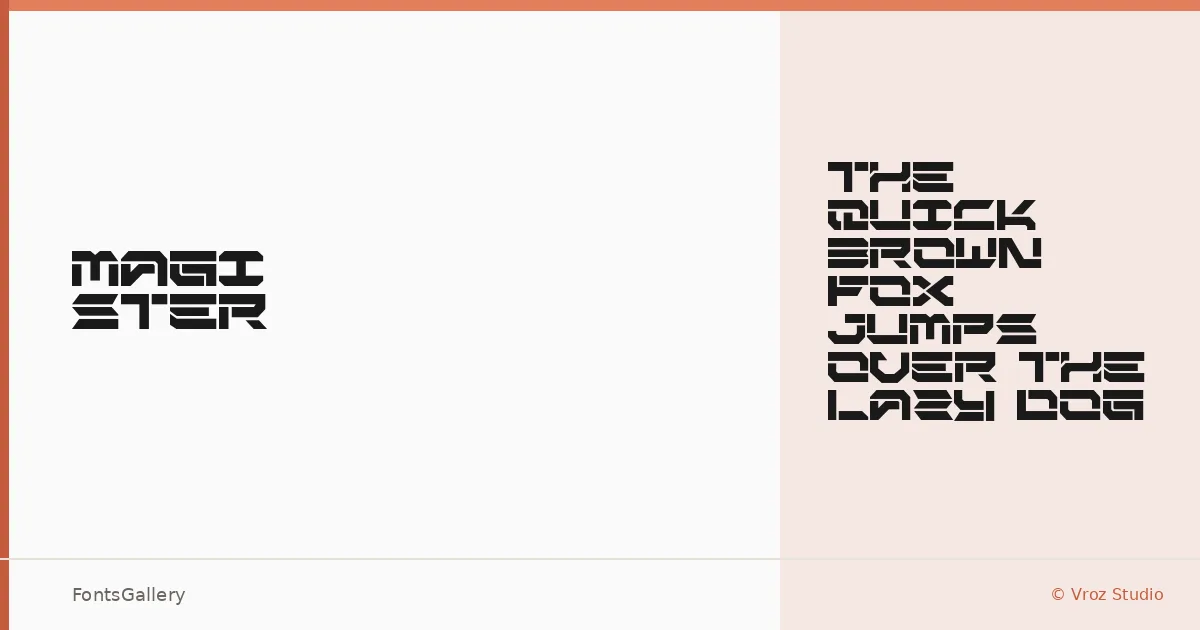
About MAGISTER Font
There is a hard-edged confidence to these letterforms — the kind of geometry that reads as authority before you've processed a single word. Vroz Studio built this display face with a futuristic sensibility, pushing the caps into territory that feels closer to industrial marking than classical typography.
A single-weight display cut — Regular — delivered in OTF, MAGISTER keeps its energy focused rather than spread across a range. The mood is bold and modern, with the kind of rigid structure that holds up at large sizes without softening. Nothing here is decorative for its own sake; the forms earn their weight through proportion and restraint.
It's built for work that needs presence: posters, logo lockups, headline treatments, branding systems, and T-shirt graphics where the type itself does the heavy lifting. For text alongside it, the clean neutrality of Helvetica or Josefin Sans creates breathing room, while Asap handles body copy without competing. Canela or ABC Arizona can introduce warmth and contrast when the composition calls for something less mechanical beneath the headline.